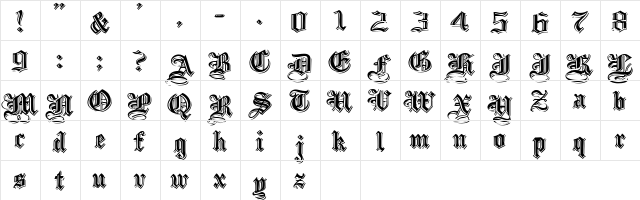
EmbossedBlackWide Normal
Design Context for EmbossedBlackWide Typeface
EmbossedBlackWide is a composed and adaptable typeface that performs quietly and consistently across a wide range of design contexts.